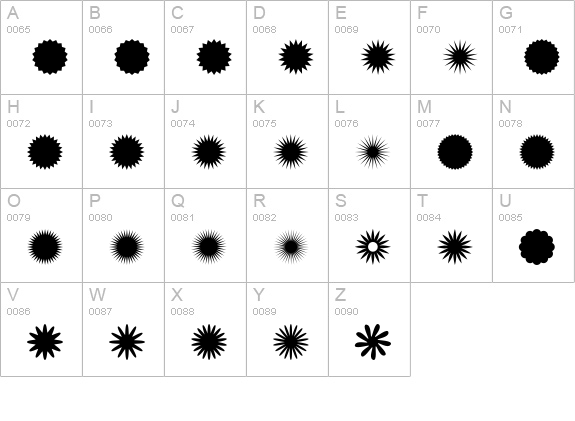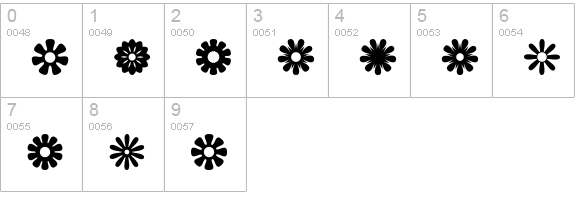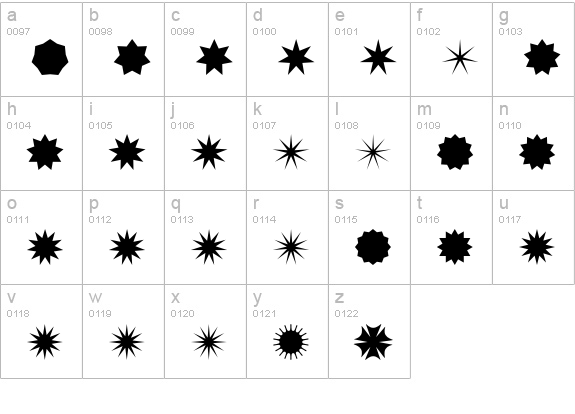
AltemusBursts Font Details
AltemusBursts is a captivating and dynamic font that exudes energy and creativity. With its bold and intricate design, this font is perfect for making a statement in your projects. Each letter is uniquely crafted with bursts of flair and style, adding a touch of excitement to any text. The best part? AltemusBursts is completely free to download at FontsMarket.com! You can easily enhance your designs with this eye-catching font without having to spend a dime. Whether you're designing posters, logos, or social media graphics, AltemusBursts is sure to make your text pop and stand out from the crowd. Don't miss out on the opportunity to add AltemusBursts to your font collection today. Download this stunning font for free and let your creativity burst forth in your designs!